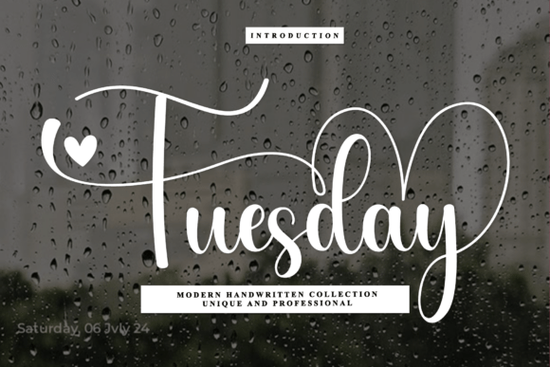
If you're looking for a friendly, flowing script font that feels personal without being overly formal, Tuesday Font is a thoughtful choice. It’s a gentle handwritten typeface soft curves, subtle variations in stroke weight, and a relaxed rhythm that reads like something written with care, not programmed. Whether you're designing wedding stationery, branding for a small-batch candle shop, or printable greeting cards for your Etsy store, Tuesday brings warmth and quiet elegance without demanding attention. It’s the kind of font that supports your message instead of competing with it.
When does Tuesday Font work best?
Tuesday shines where authenticity and approachability matter. Think: a boutique skincare brand’s product labels, a cozy café’s seasonal menu board, or hand-lettered quotes for Instagram posts. Because it’s cursive but not overly ornate, it holds up well at medium sizes like on a 5×7 greeting card or a t-shirt mockup but still scales gracefully for larger applications like wall art or digital banners. It’s especially popular among print-on-demand sellers who want something romantic yet versatile enough for multiple niches: bridal collections, baby announcements, fashion lookbooks, or even minimalist marketing emails.
It pairs naturally with clean sans-serifs (like Montserrat or Poppins) for contrast, or with other soft scripts if you’re building a multi-font brand kit. Just avoid pairing it with anything too rigid or geometric it can feel disconnected. A good rule of thumb: if the font feels like it could be written with a fine-tip marker or brush pen, it’ll likely harmonize with Tuesday.
How does it compare to other popular script fonts?
Tuesday sits comfortably between playful and polished. It’s less bouncy than Giggle Beans Font, which leans into whimsy and exaggerated loops great for kids’ products or fun social media graphics. Compared to Playful Note Font, Tuesday has fewer sharp angles and a more consistent baseline, making it easier to read in longer phrases. For wedding-focused projects, Wedding Party Font offers more traditional flourishes, while Tuesday keeps things light and modern ideal if your couple prefers “rustic-chic” over “ballroom-glam.” And unlike Premierre Marsiella Font, which has strong calligraphic contrast and dramatic swashes, Tuesday stays understated and accessible for everyday use.
Designers using it for physical products often appreciate how well it prints. The strokes are thick enough to hold up on kraft paper or textured cardstock, and thin enough to stay legible at 14–16pt on product tags or packaging inserts. If you're preparing files for a print vendor, just double-check your embedding settings most commercial printers prefer embedded fonts or outlined text for reliability.
Who’s using Tuesday Font right now?
We’ve seen crafters use it for custom tea towel embroidery patterns, small businesses apply it to subscription box headers, and educators incorporate it into printable classroom resources especially for early literacy materials where friendly letterforms help young readers feel at ease. One maker told us she used it across her entire brand refresh: logo, website headers, and Instagram story highlights and customers commented that her shop “felt like a warm conversation.” That’s the quiet strength of this font: it doesn’t shout, but it lingers.
If you're new to working with script fonts, start simple. Try it on a single-line quote or name tag before moving to multi-word layouts. And remember: Tuesday works best when it's supporting your content not carrying it alone. Pair it with clear body text, generous white space, and intentional color choices.
- ✅ Use for wedding invites, baby showers, and anniversary cards
- ✅ Great for feminine or neutral-leaning lifestyle brands
- ✅ Works in both digital and physical print contexts
- ❌ Not ideal for long paragraphs or technical documentation
- ❌ Avoid pairing with ultra-thin or highly decorative fonts